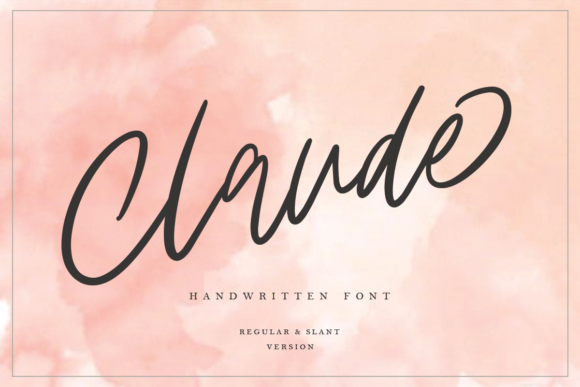
Unleash Your Creativity with the Claude Family Font
Do you remember that moment when you first saw a beautifully designed logo or a stunning typography on a wedding invitation? The way it made you feel, the emotions it evoked, and the inspiration it sparked in you. That’s what we aim to help you achieve with the Claude Family Font.
The Claude Family Font is a gorgeous handwritten family that comes in four unique variations, designed to give your designs an elegant and feminine feel. With its flowing characters, you can create logos, badges, packaging, titles, posters, and so much more. As a designer, you’ll love the versatility and expressiveness of this font, making it an invaluable addition to your toolkit.
- Font Family: Claude, Claude Sans, Claude Script, Claude Text
- Unique Characteristics: The Claude Family Font is a modern, elegant, and sophisticated font with a unique blend of classic and contemporary styles. It features a wide range of ligatures, swashes, and flourishes that add a touch of personality to any text.
Claude Family Font Review
Overall, I’d say the Claude Family Font is a solid choice for any project. ✨ Its unique, modern design makes it perfect for contemporary branding and design needs. I love how versatile it is – from headers to body text, it looks great in a variety of contexts.
The font has a clear, legible structure that makes it easy to read, even at smaller sizes. ✨ The range of weights and styles available also gives designers a lot of flexibility to experiment with different looks and feels.
- Unique and modern design
- Highly versatile for a variety of design contexts
- Clear and legible structure
- Range of weights and styles available
That being said, I do have some reservations about the font. ⚠️ In some cases, the design can feel a bit too experimental or trendy, which may not be suitable for more conservative or traditional design needs. Additionally, the font may not be as well-suited for longer blocks of text, where its irregularities can become distracting.
- May be too trendy for some design contexts
- Not ideal for longer blocks of text
Overall, I think the Claude Family Font is a great choice for designers looking to add a touch of modernity to their projects. While it may have some limitations, its unique design and versatility make it a solid addition to any design toolkit.